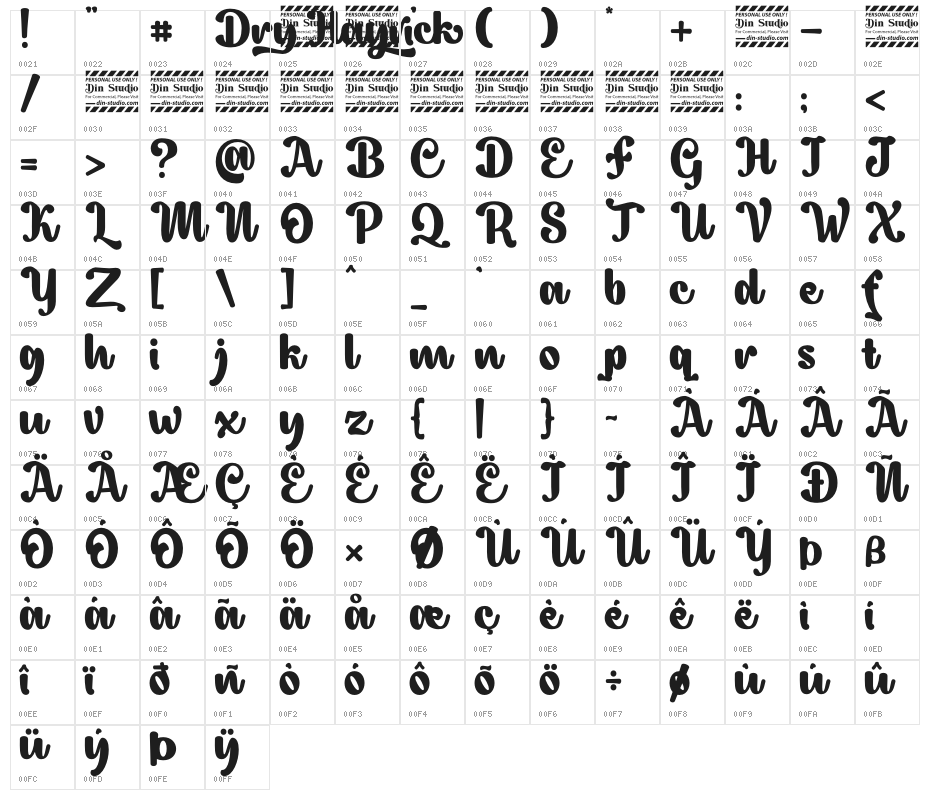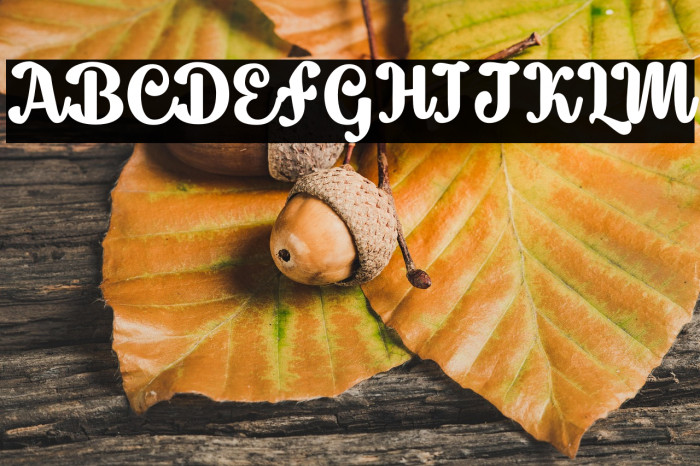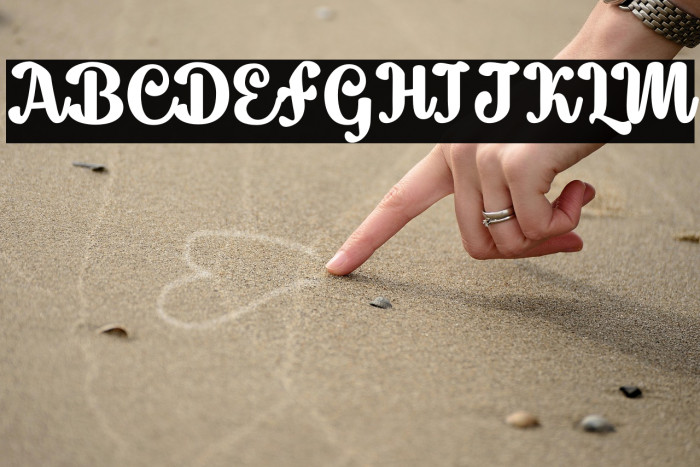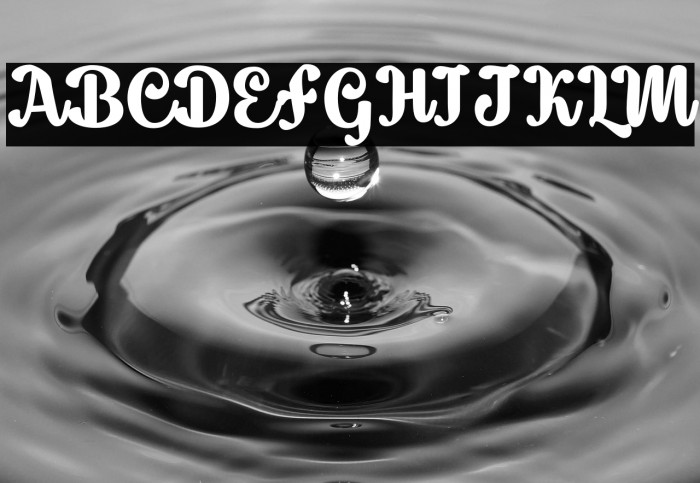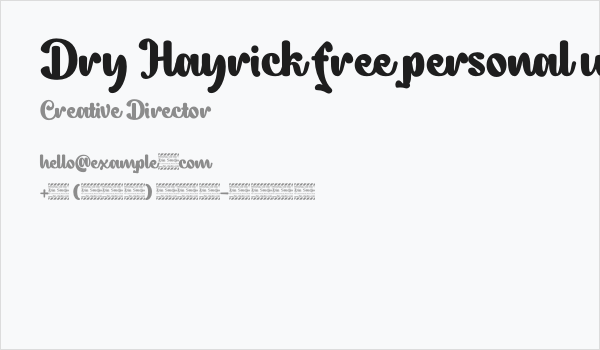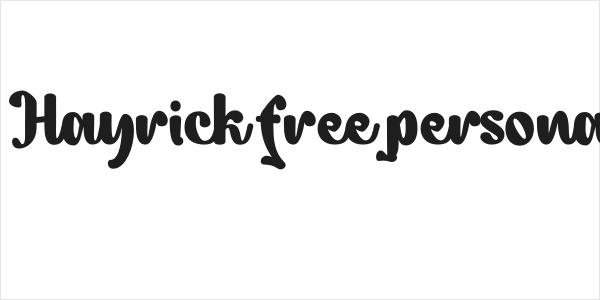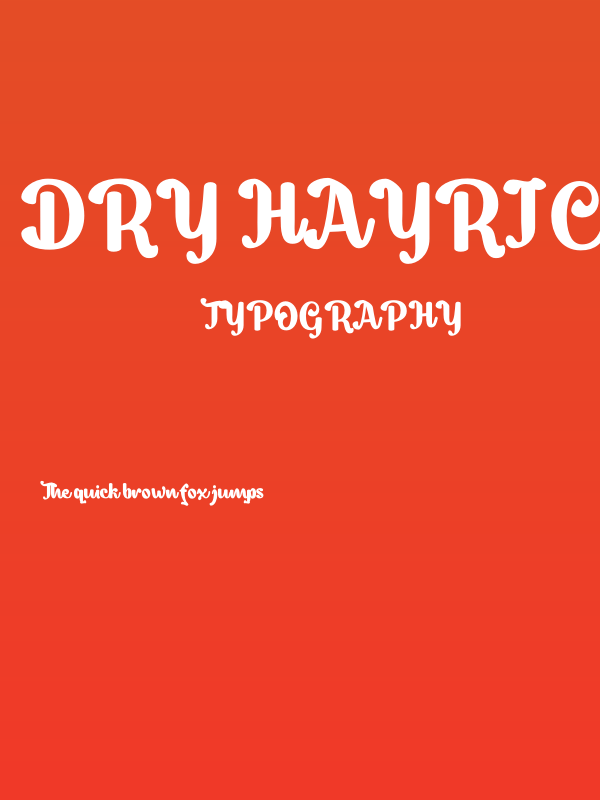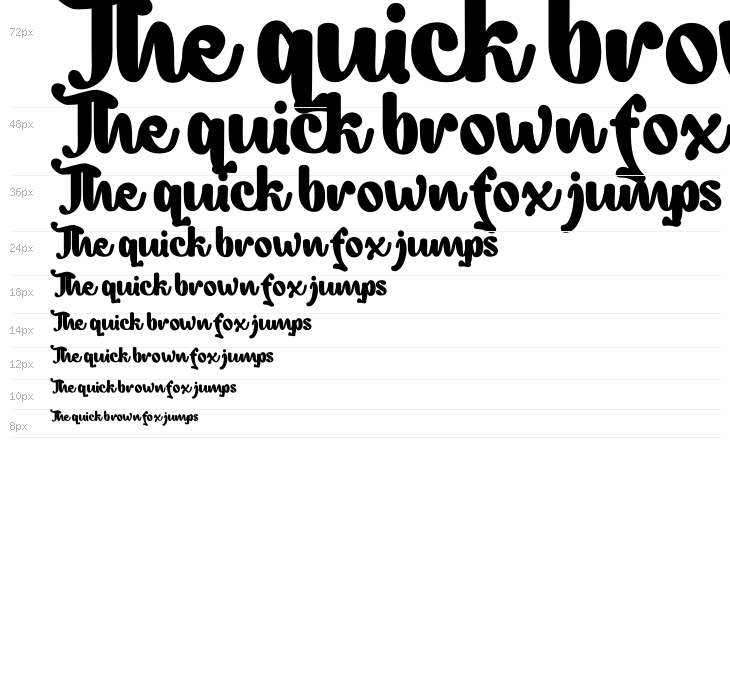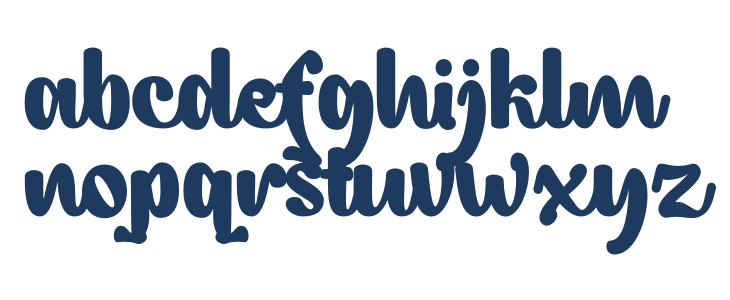
Dry Hayrick free personal use Font
Dry Hayrick free personal use Description
This font features a bold and playful script style with a strong presence. The letters are connected in a fluid manner, creating a sense of movement and energy. The uppercase letters are slightly more formal, while the lowercase letters exhibit a casual, handwritten feel. The strokes are thick and consistent, providing a robust appearance. This font is ideal for projects that require a lively and dynamic touch, such as invitations, posters, or branding materials. The overall design is both modern and approachable, making it suitable for a variety of creative applications.
| Proposed Projects | Invitations, posters, branding materials, social media graphics. |